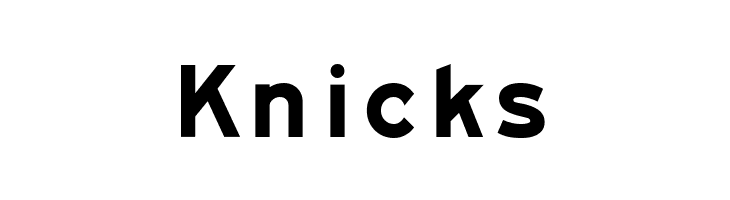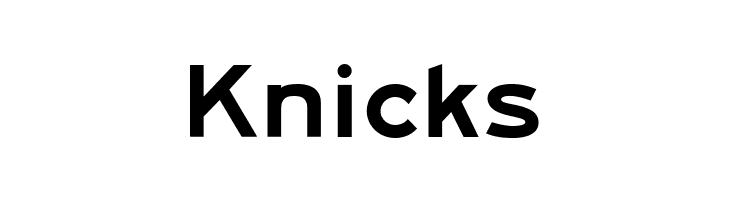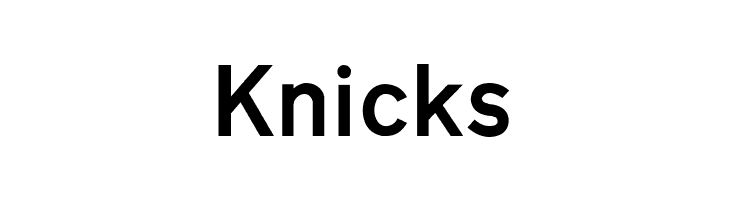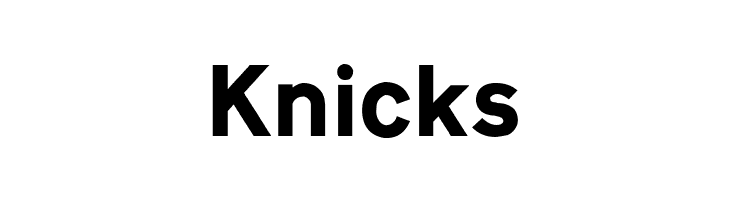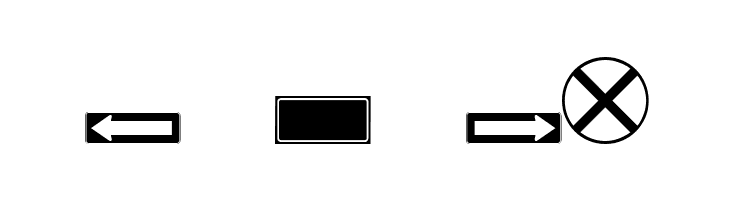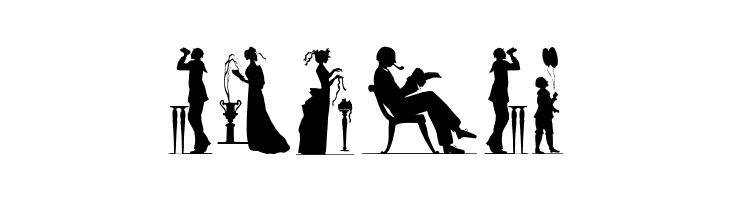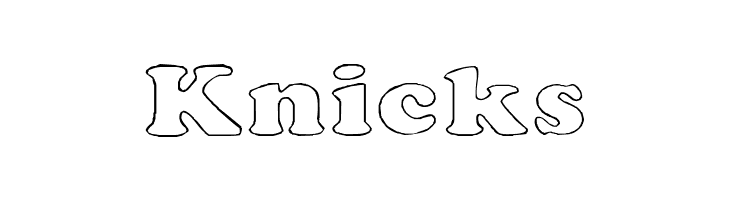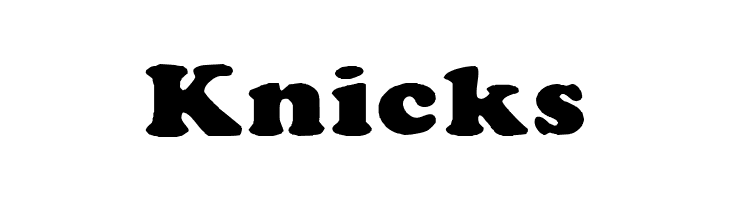
• Roadgeek 2005 Series EM
A bold, modern sans-serif font with excellent readability and uniform stroke widths.
• Roadgeek 2005 Series F
A bold, modern sans-serif font with geometric influences and high legibility.
• Roadgeek 2005 SignBacks
A bold, geometric dingbat font featuring road sign shapes.
• Roadgeek 2005 Transport Heavy
A bold, geometric typeface with strong lines and excellent readability.
• Roadgeek 2005 Transport Medium
A modern, clean sans-serif font with uniform strokes and high legibility.
• Roadway
A bold, condensed font with uniform stroke width for strong visual impact.
• Rocketship Town
A bold, distressed font with a rugged, vintage appearance.
• Rockletter Simple
A bold, playful font with rounded characters and consistent stroke width.
• Rockletter Transparent
A bold, decorative font with distinct outlines and a cohesive design.
• RomanticShadows
The image features decorative silhouette illustrations, not a font.